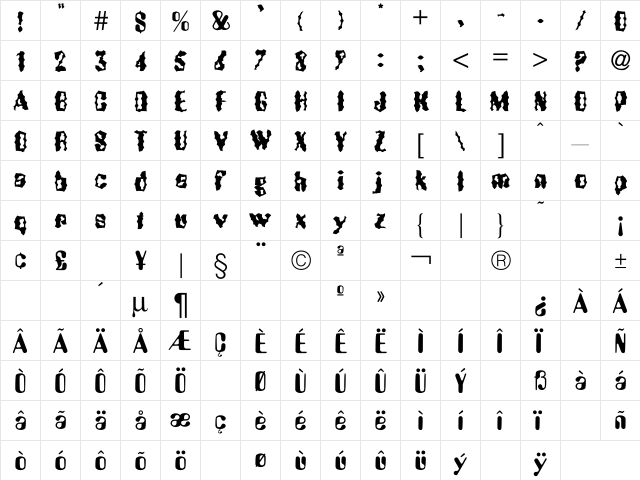
Lumpy1 Regular
Design Context for Lumpy1 Typeface
Lumpy1 is a composed and adaptable typeface that performs quietly and consistently across a wide range of design contexts.